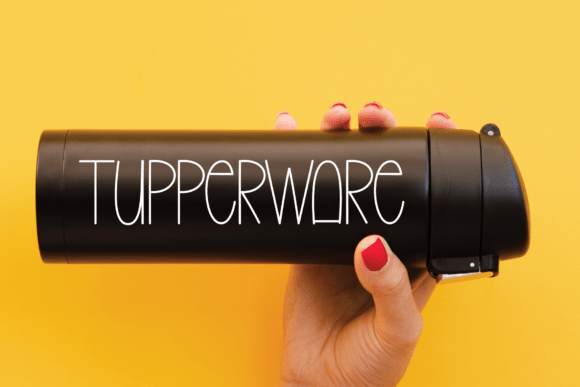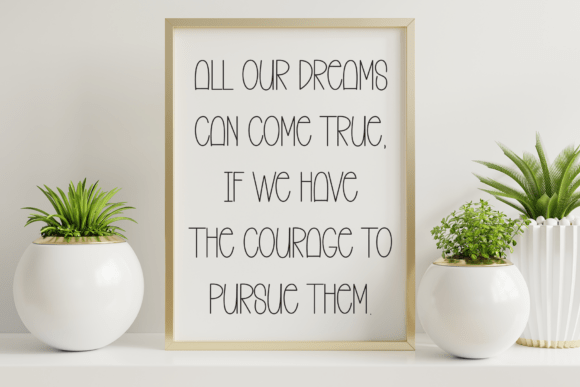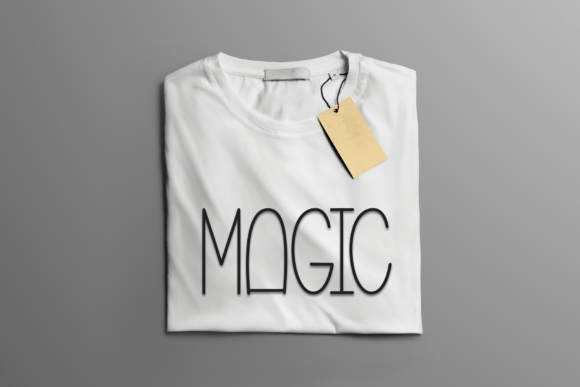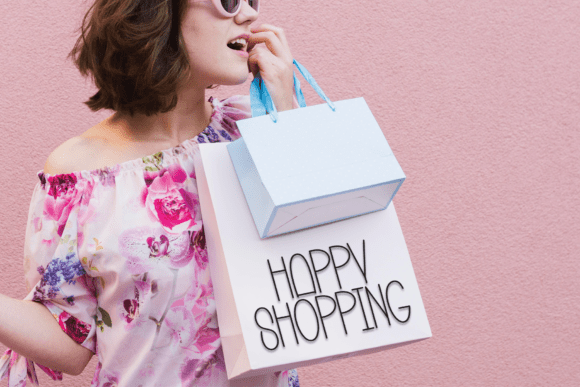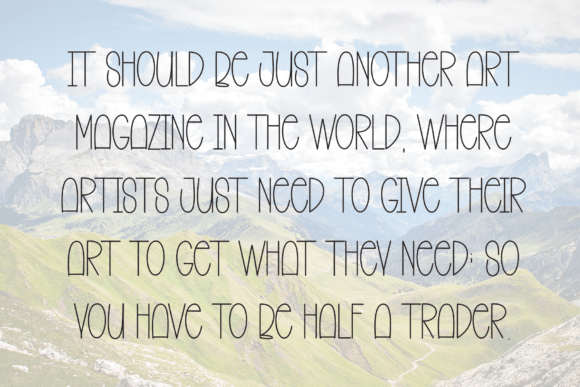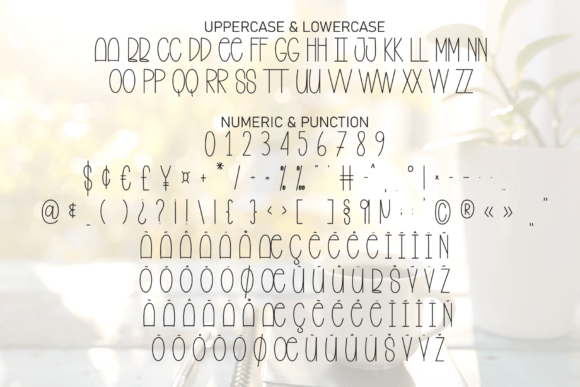
Introducing Good Morning Font: The Perfect Blend of Simplicity and Friendliness
In the world of typography, fonts play a crucial role in conveying the tone and personality of a brand or design. When it comes to creating a lasting impression, the right font can make all the difference. This is where Good Morning Font comes in – a casual and neat display font that combines simplicity with a friendly, approachable vibe. In this article, we’ll dive into the features and benefits of Good Morning Font, and explore how it can elevate your designs to the next level.
Clean Lines, Balanced Letterforms, and Subtle Rounded Edges
Good Morning Font boasts clean lines, balanced letterforms, and subtle rounded edges that capture the essence of modern handwritten typography with a polished finish. The font’s design is characterized by its:
- Clean Lines: Good Morning Font features clean and precise lines that give it a crisp and modern look. The lines are smooth and free of any unnecessary embellishments, making it perfect for designs that require a clear and concise message.
- Balanced Letterforms: The font’s letterforms are carefully crafted to ensure balance and harmony. Each letter is designed to work seamlessly with the others, creating a cohesive and visually appealing text.
- Subtle Rounded Edges: The subtle rounded edges of Good Morning Font add a touch of warmth and friendliness to the font. This feature makes it perfect for designs that require a approachable and inviting tone.
Ideal for Branding, Headlines, Packaging, and Digital Content
Good Morning Font is an incredibly versatile font that can be used in a variety of design applications. Its clean and modern design makes it ideal for:
- Branding: Use Good Morning Font to create a strong brand identity that reflects your company’s values and personality.
- Headlines: The font’s bold and attention-grabbing design makes it perfect for headlines and titles.
- Packaging: Good Morning Font can add a touch of warmth and sophistication to your packaging design.
- Digital Content: The font’s clean and legible design makes it perfect for digital content, such as blog posts, social media, and website headers.
Adding a Warm and Inviting Touch to Your Design
Good Morning Font is designed to add a warm and inviting touch to any design. Its friendly and approachable vibe makes it perfect for designs that require a personal and human touch. Whether you’re creating a brand identity, packaging design, or digital content, Good Morning Font can help you:
- Create a lasting impression: The font’s unique design and friendly vibe can help you create a lasting impression on your audience.
- Stand out from the crowd: Good Morning Font’s clean and modern design can help you stand out from the crowd and differentiate your brand.
- Convey your message effectively: The font’s clear and legible design makes it easy to convey your message effectively.
Versatility and Legibility
Good Morning Font is designed to deliver clarity and charm in equal measure. Its versatile style and crisp structure make it perfect for a variety of design applications. The font’s:
- Versatile style: Good Morning Font can be used in a variety of design applications, from branding and packaging to digital content.
- Crisp structure: The font’s crisp structure makes it easy to read and understand.
In conclusion, Good Morning Font is a casual and neat display font that combines simplicity with a friendly, approachable vibe. Its clean lines, balanced letterforms, and subtle rounded edges make it perfect for designs that require a modern and polished finish. With its versatility, legibility, and warm and inviting touch, Good Morning Font is an excellent choice for designers and crafters looking to elevate their designs to the next level.
Whether you’re creating a brand identity, packaging design, or digital content, Good Morning Font can help you create a lasting impression, stand out from the crowd, and convey your message effectively. So why not give Good Morning Font a try and experience the power of typography in your designs?